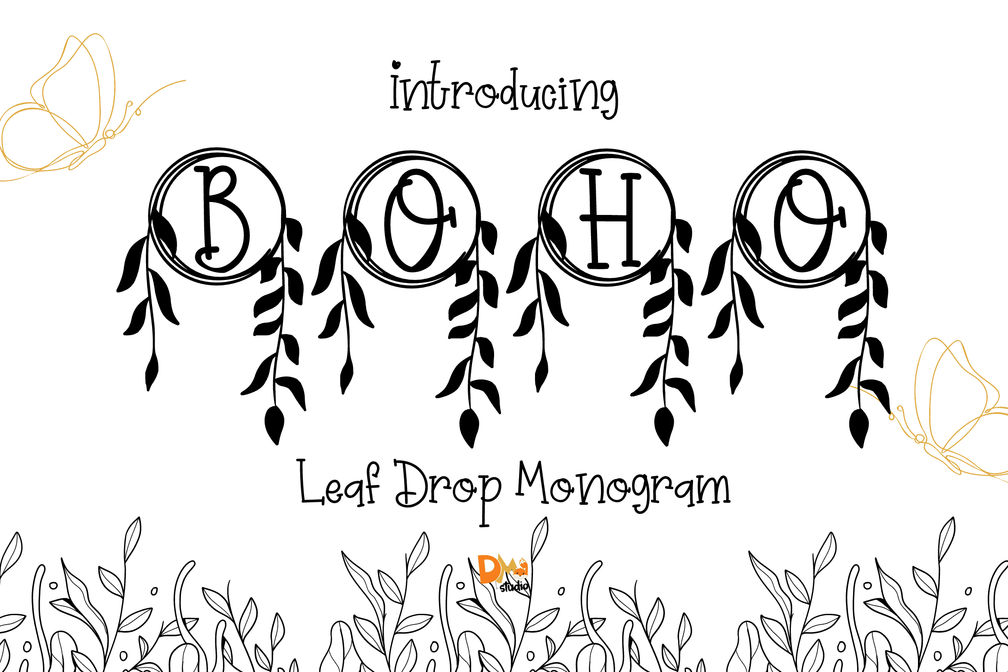
Leaf Drop Monogram
Leaf Drop Monogram – Elegant Serif Monogram Font with Falling Leaf Accents
Leaf Drop Monogram is a refined serif monogram font adorned with delicate falling leaf motifs. Each uppercase letter is designed with softly cascading foliage, creating a graceful and nature-inspired aesthetic perfect for weddings, seasonal branding, and personalized design projects that embrace organic beauty.
Falling Leaf Details: Subtle leaf illustrations drop along the letterforms for a calming, botanical look.
Classic Serif Foundation: Balanced serif construction brings a timeless and versatile structure.
Nature-Infused Design: Combines elegance and simplicity with seasonal charm.
Ideal For: Autumn-themed crafts, wedding invitations, personalized logos, Cricut designs, product packaging, and seasonal stationery.